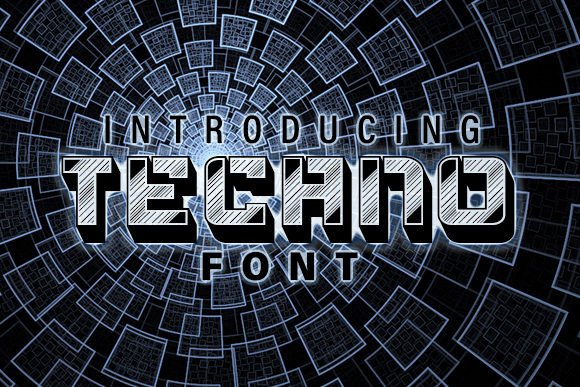
Behold, the Techno Font, a typographic masterpiece crafted for the modern-day visionary. This 3D lettering is not merely a collection of glyphs; it's an artistic revolution that transcends the boundaries of ordinary typefaces. Techno Font is an invitation to explore a realm where imagination reigns supreme. Witness the captivating dance of light and shadow as your designs take on a new dimension, propelling you to the forefront of creativity.
With Techno Font, you're not just adding text; you're making a statement. Its bold, geometric forms command attention, demanding recognition in a world saturated with visual noise. Create posters that shout, flyers that demand readership, and t-shirts that spark conversations. Let your designs radiate with an energy that's as infectious as it is unforgettable.
Techno Font is a font with attitude, a font with a purpose. It's a font that refuses to blend in. It's a font that breaks the mold, challenges conventions, and dares you to dream bigger. Its crisp edges and sharp angles exude a sense of confidence and power, empowering you to make a lasting impact with every word you display.
Join the ranks of creative pioneers who recognize the transformative potential of Techno Font. Let its three-dimensional charm elevate your projects to new heights, leaving a legacy of stunning visuals that speak volumes. Techno Font is more than just a font; it's a gateway to a world of infinite creative possibilities.